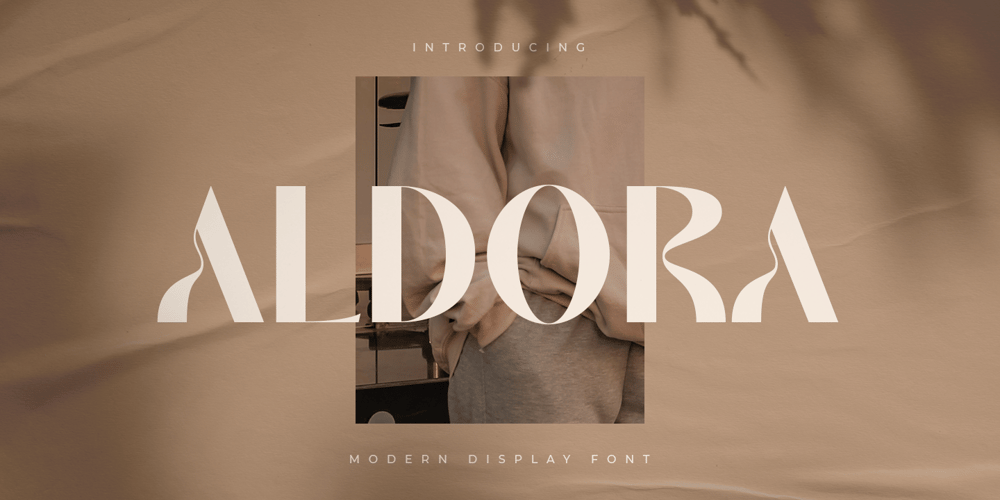
Aldora Style Font Family was designed by Zamroni Hamzah and published by Sensatype Studio. Aldora Style contains 1 styles and family package options. A Modern Elegant Display Font that we created special for elegant and Fashion branding needs, with extra characters alternate in unique shape will be ready to add value of your brand. It so nice to leverage designer or product owner that need solutions to make their design look more classy and modern. And specially for this font, We prepared any alternate characters to help you create unlimited variations for your creative needs.Aldora Modern Display font ready with: Any options to get creative variations (combination of Any Alternates) Preview as a inspirations that you can do with Aldora font Ready with Lowercase and Uppercase characters Wish you enjoy our font. ๐